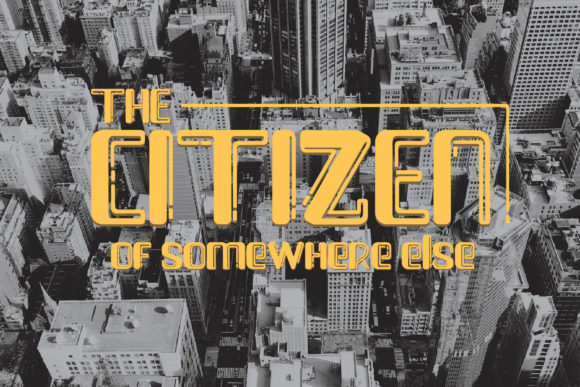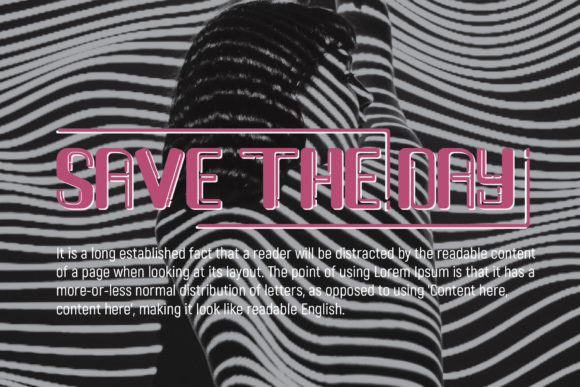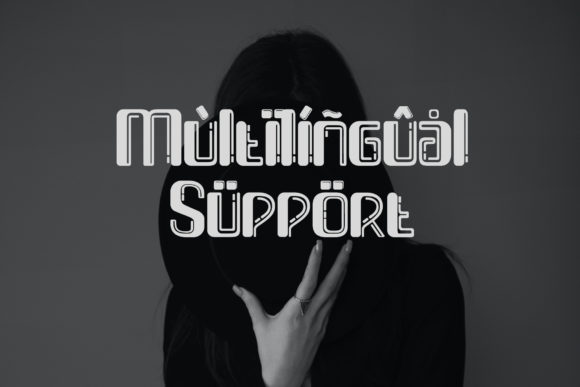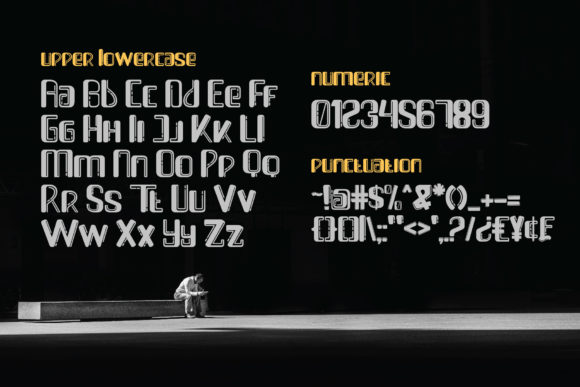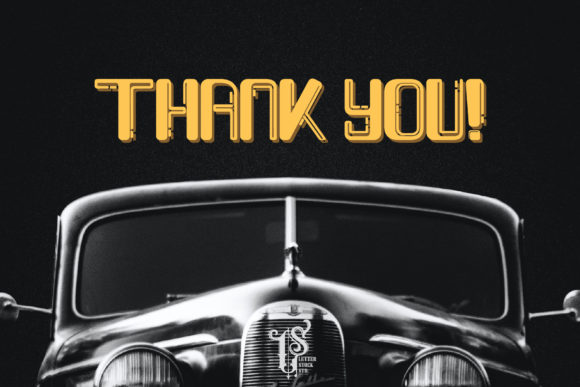
The Retro Charm of Charly Cheap Font: A Designer’s Delight
I’ll never forget the time I was working on a vintage-themed poster for a client’s retro-style diner. I had all the design elements ready – the color palette, the graphics, and the text – but something was missing. The font I had chosen just didn’t have that authentic retro vibe I was going for. That’s when I stumbled upon Charly Cheap Font, and it instantly became the star of the show! In this article, I’ll share my love for this cool and uniquely designed display font, its features, and how to make the most of it in your designs.
An Honest Review of Charly Cheap Font
- ✨ Unique retro design that adds a touch of nostalgia to any project
- ✅ Highly versatile and can be used for a variety of designs, from posters to social media graphics
- 💥 Excellent for headlines and titles, adding a bold statement to your work
- 🎨 Great for creative hobbyists and professionals alike, easy to use and customize
While Charly Cheap Font is an amazing addition to any design project, there are a few things to keep in mind:
- 🤔 Limited use for body text due to its display font nature; it’s best used for headlines and titles
- ⚠️ May not be suitable for very small font sizes, as some details might get lost
A Practical Guide to Using Charly Cheap Font
The Inspiration Behind Charly Cheap Font
Charly Cheap Font was inspired by the retro designs of the 70s and 80s. The designer aimed to capture the essence of vintage typography while making it fresh and usable for modern designs. The result is a font that’s both nostalgic and versatile, perfect for a wide range of creative projects.
Q: What type of projects is Charly Cheap Font best suited for?
A: Charly Cheap Font is ideal for projects that require a retro or vintage touch, such as posters, social media graphics, and titles for videos or presentations.
Q: Is Charly Cheap Font suitable for body text?
A: Due to its display font nature, Charly Cheap Font is best used for headlines and titles. For body text, consider a more readable font to ensure clarity and legibility.